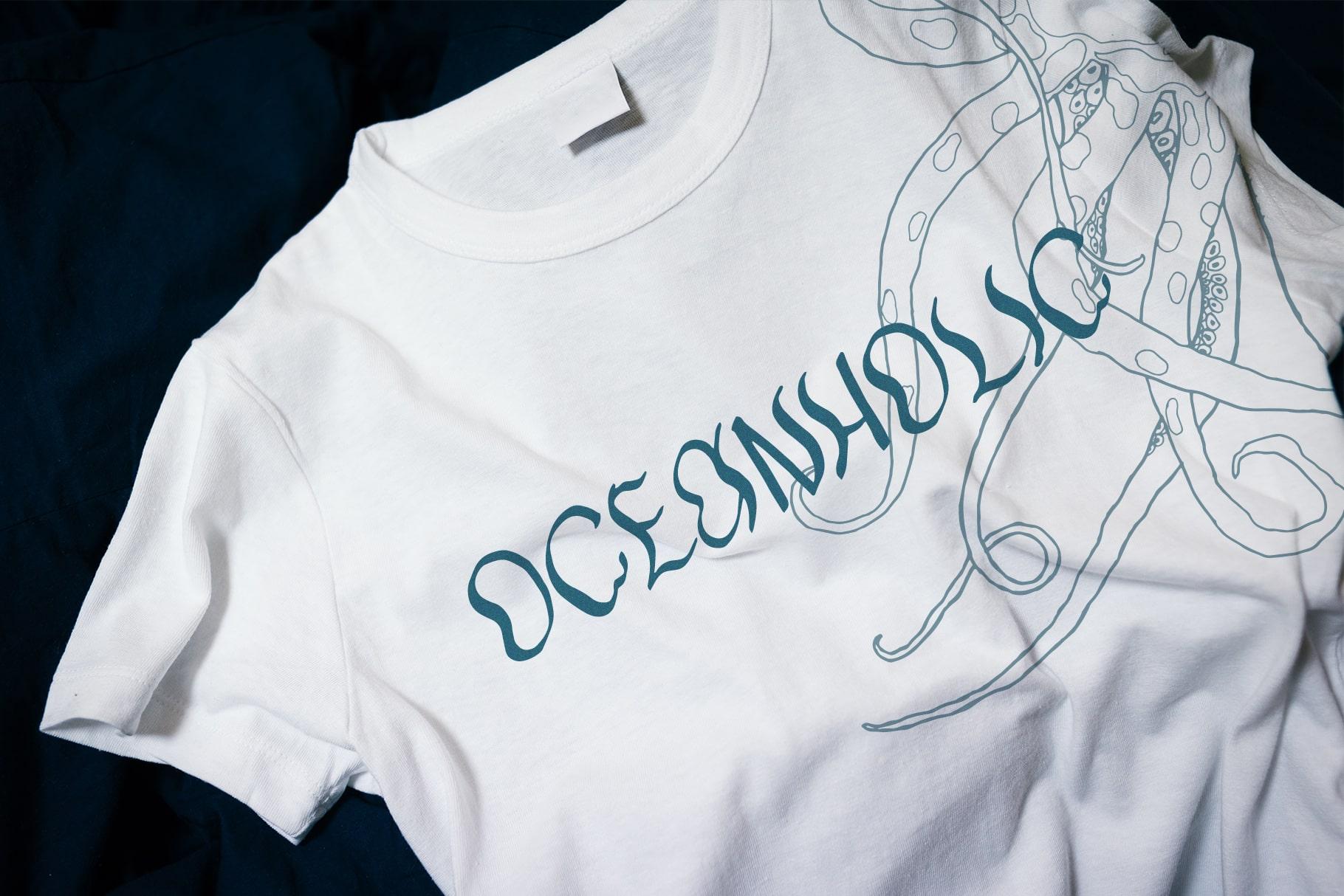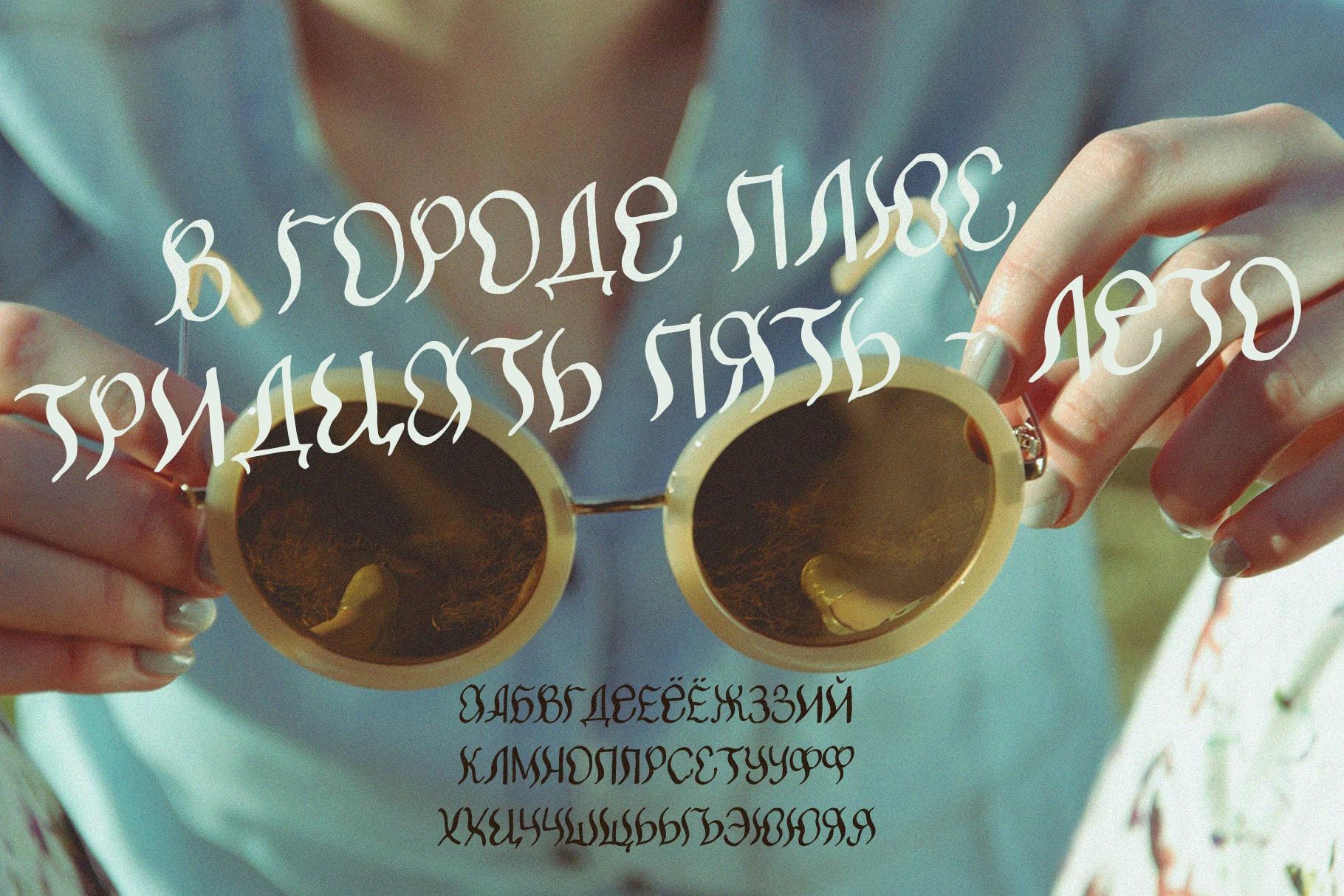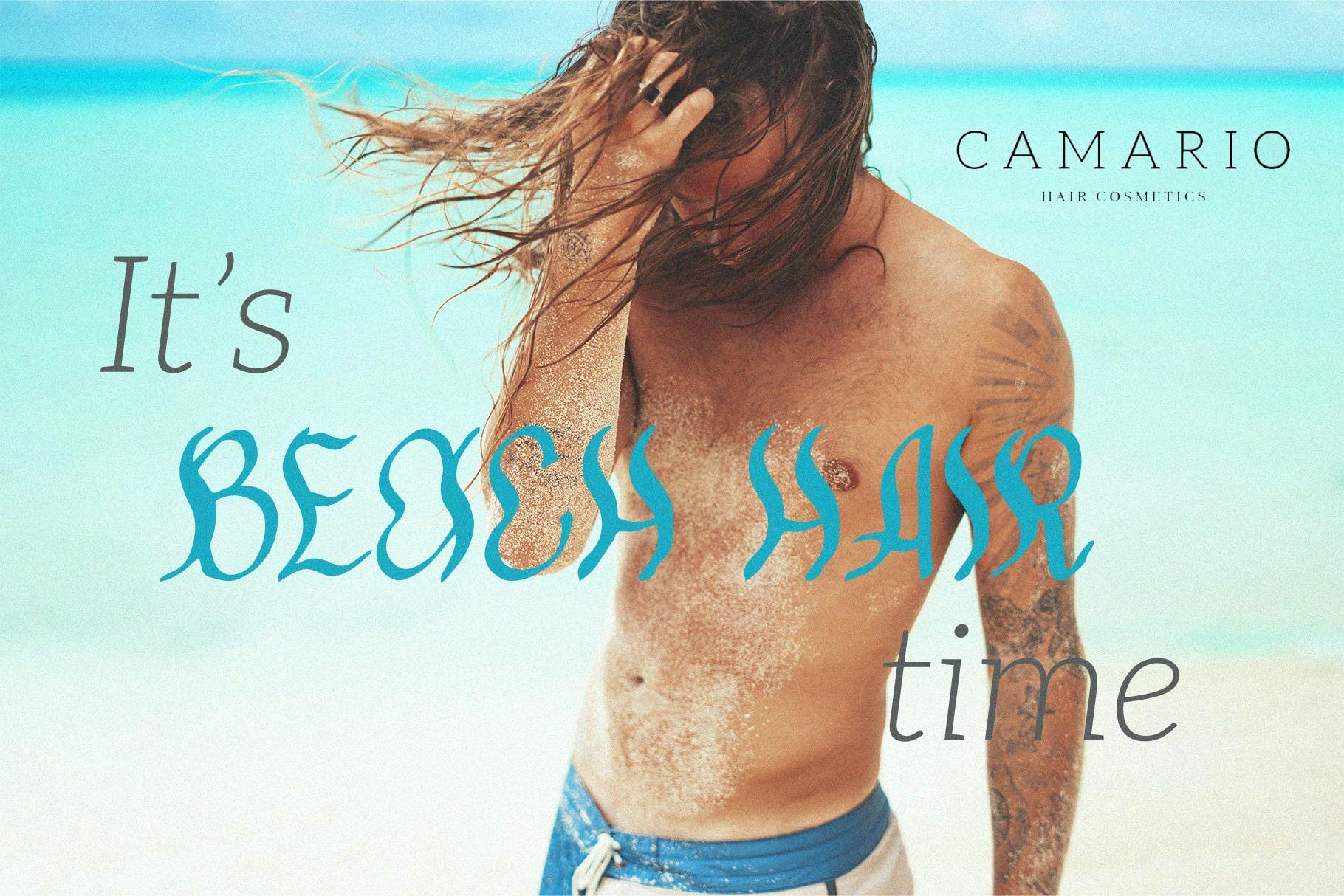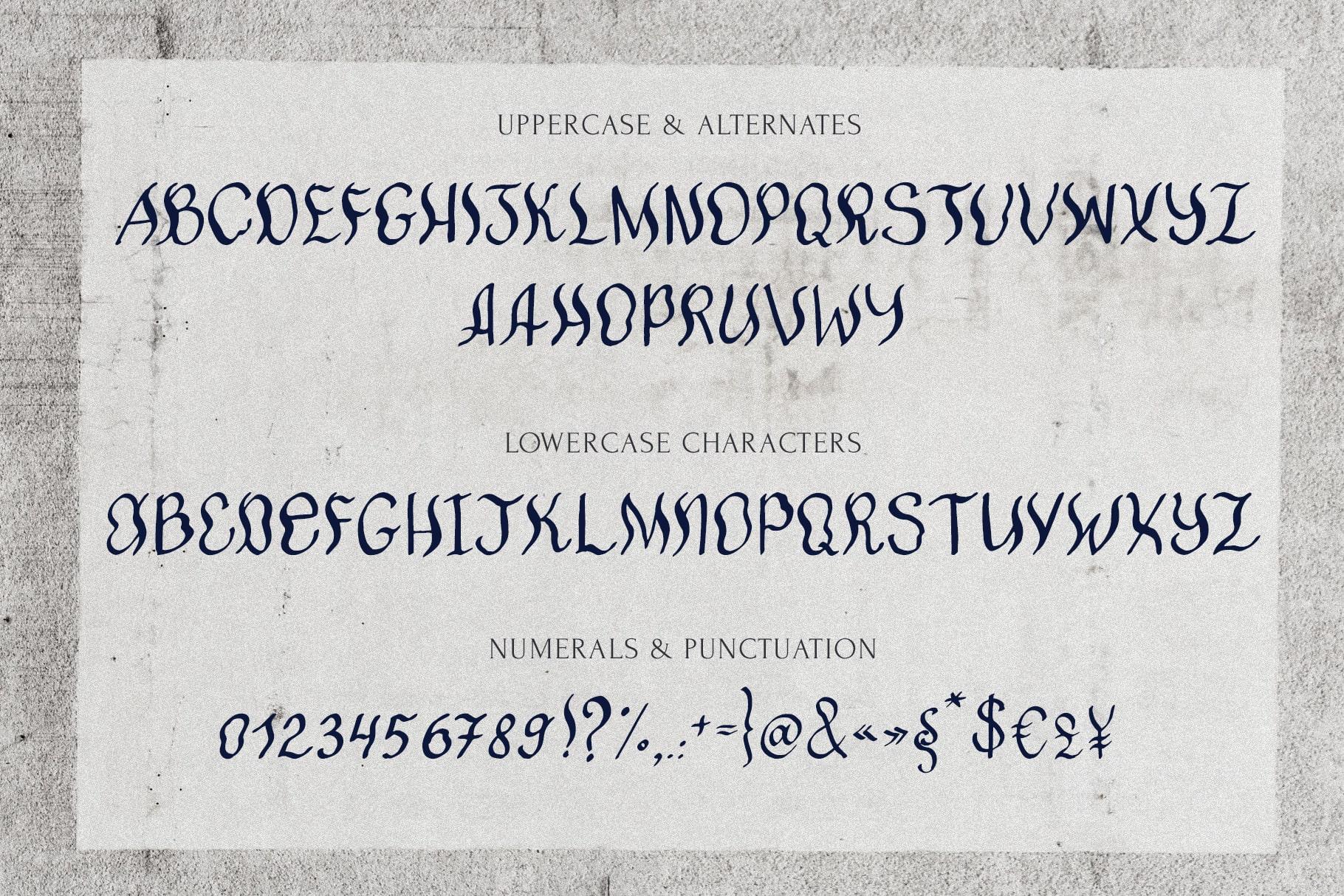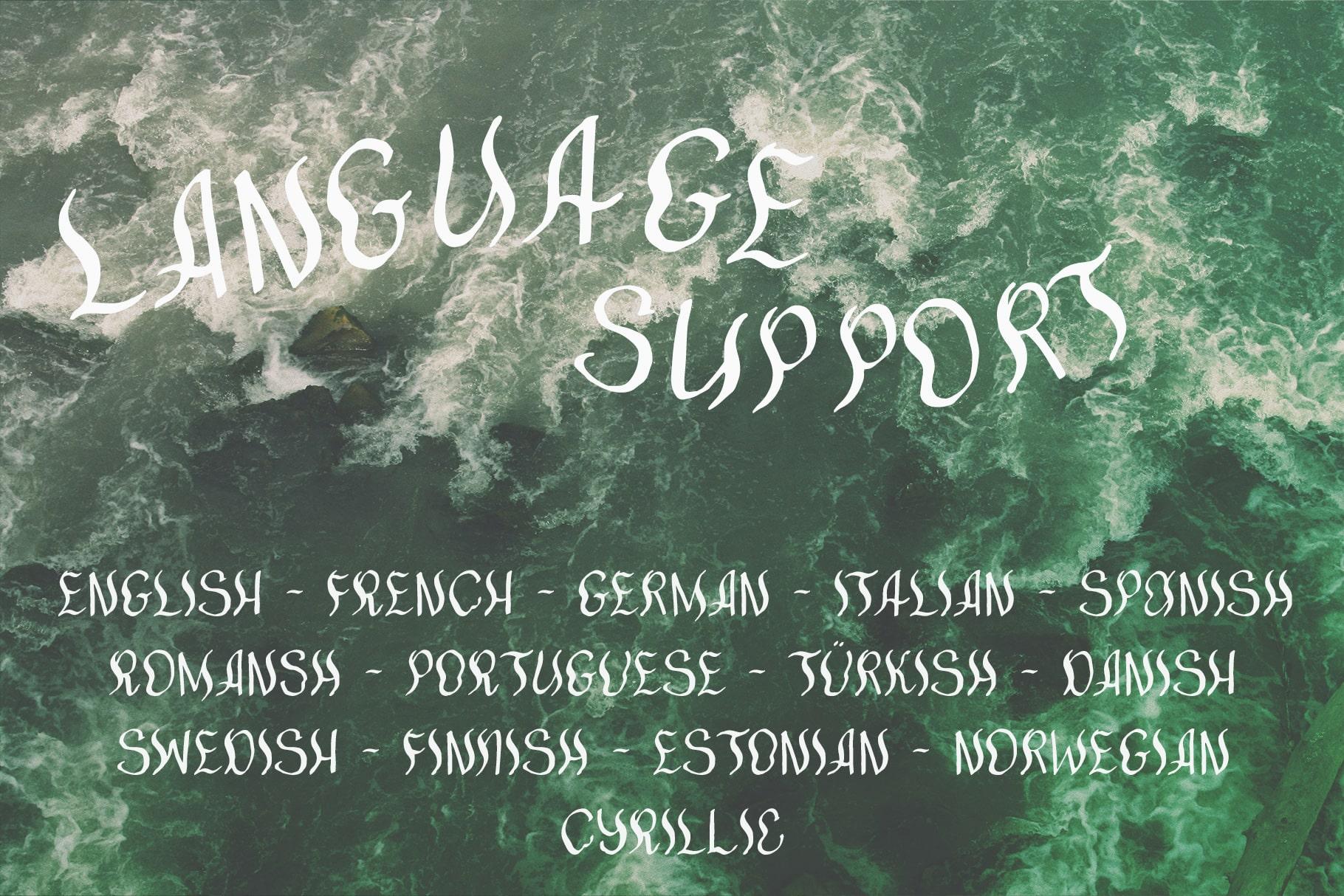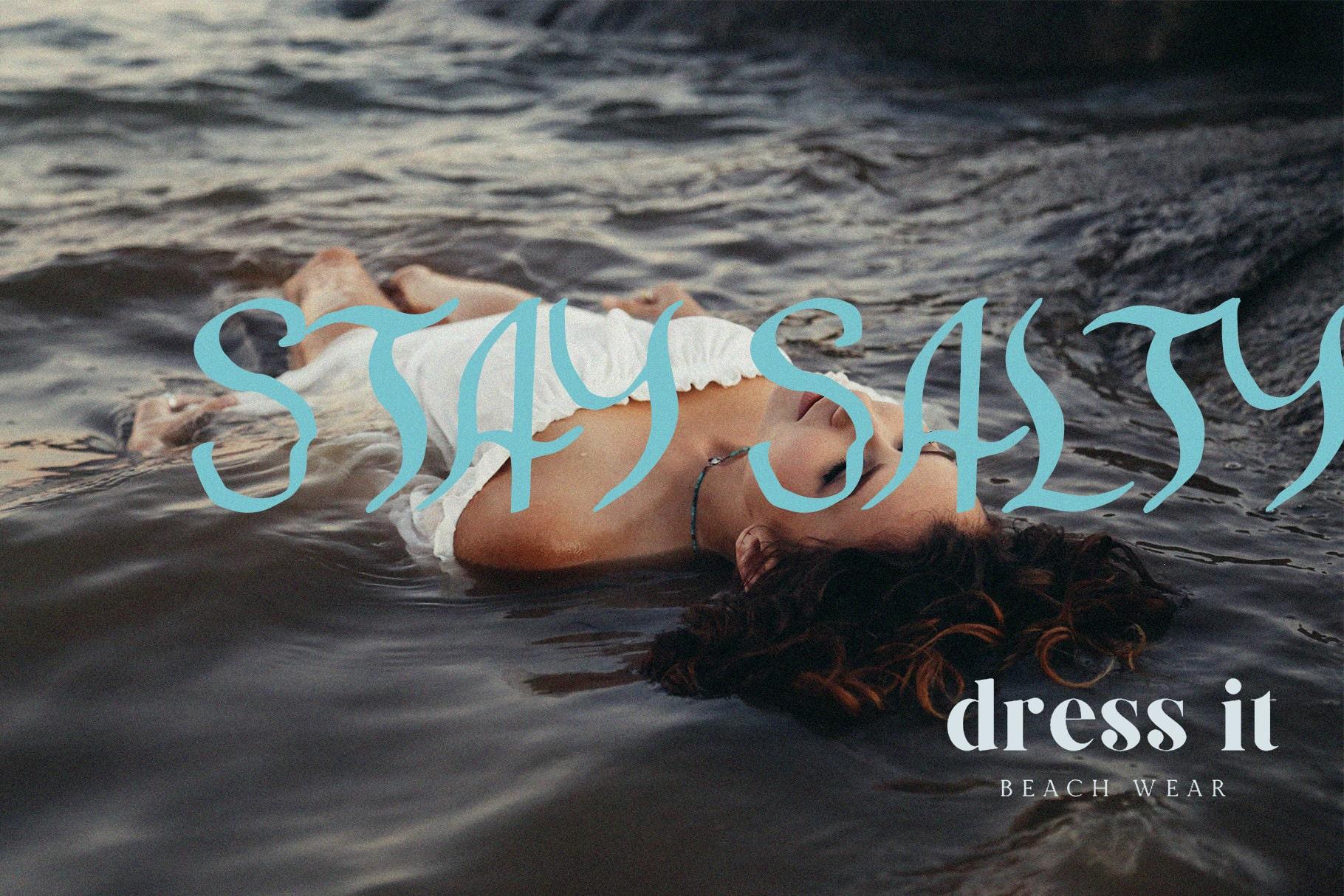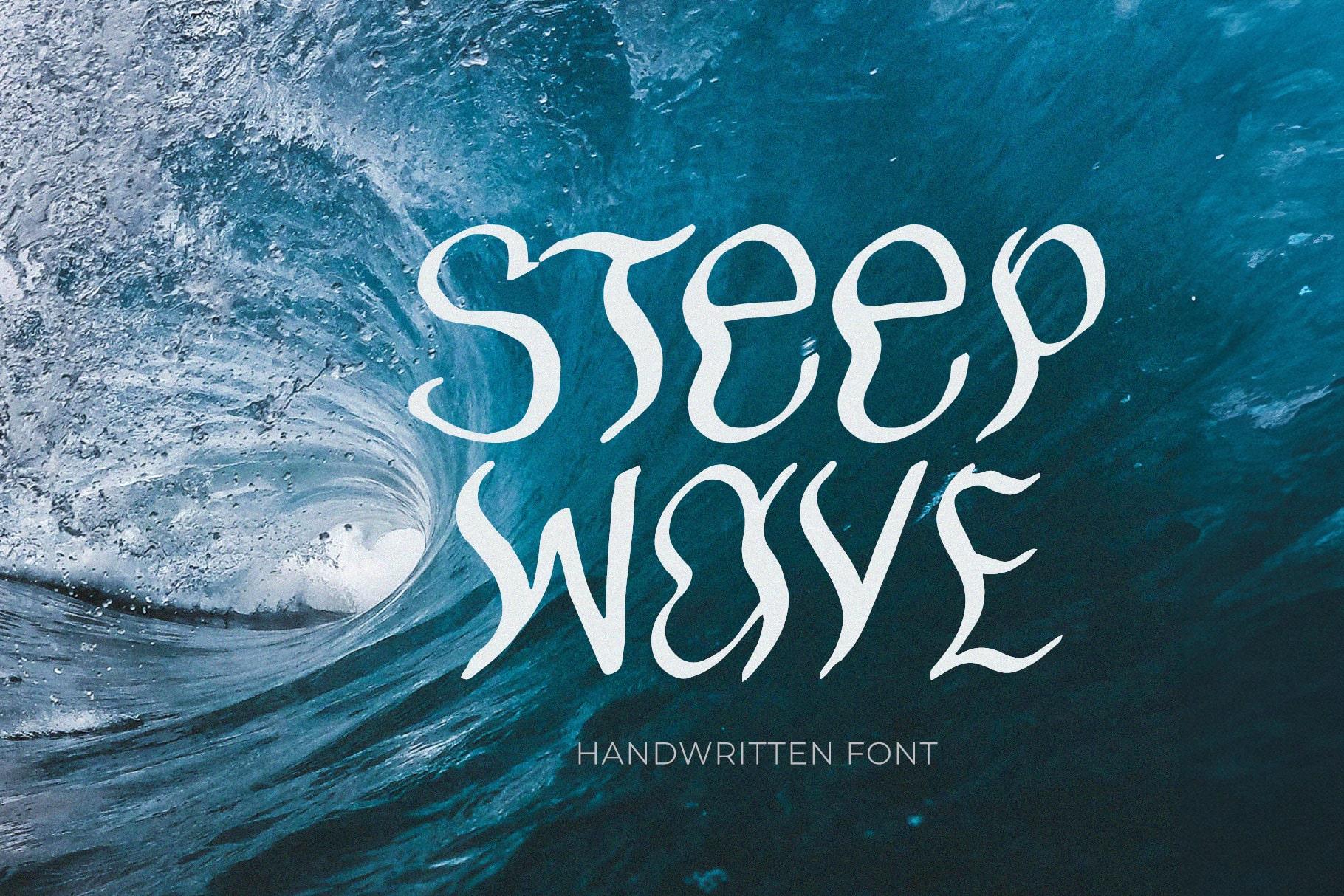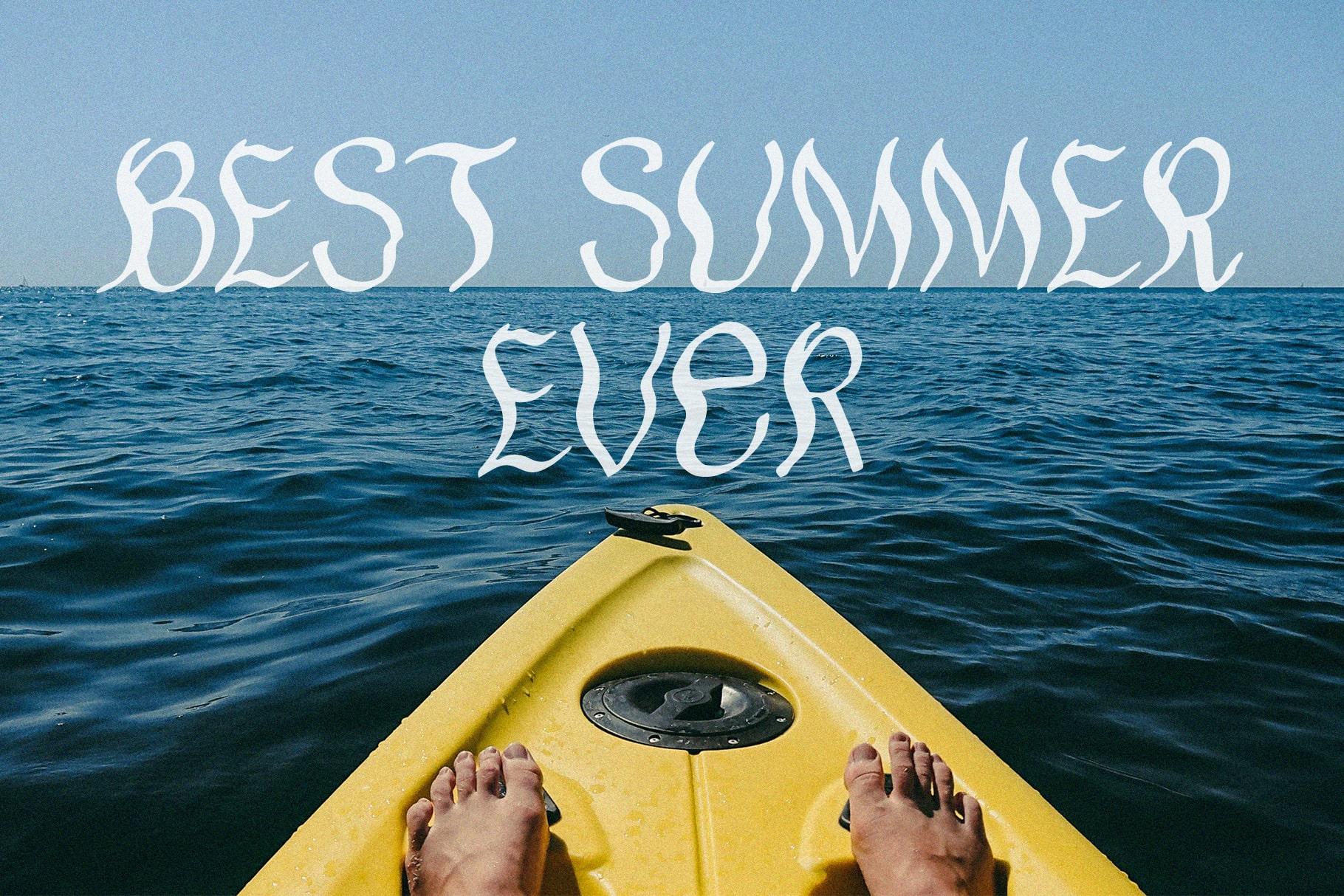
Steep wave handwritting font quirky & wavy
This is STEEP WAVE — a handwritten font with wavy letters written in pen and ink
This is STEEP WAVE — a handwritten font with wavy letters written in pen and ink. This is an accent, very decorative font with a lot of ligatures. Supports many languages, including Cyrillic. The font is suitable for design on various things, includes logo design, packaging, advertising, product design, websites, blogs and much more.
STEEP WAVE has extensive language support, it includes English, French, German, Italian, Spanish, Portuguese, Danish, Norwegian, Swedish, Finnish, Estonian, Romansh, Turkish, Cyrillic.